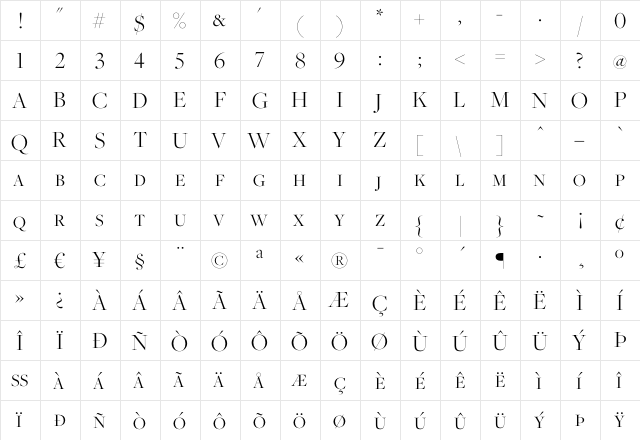
Freight Big Light SC
Design Context for Freight Typeface
Freight takes a measured approach to typography — its balanced proportions and neutral character make it a reliable workhorse for both digital and print work. Its slender proportions lend an understated elegance to any composition.